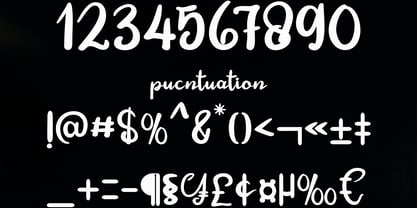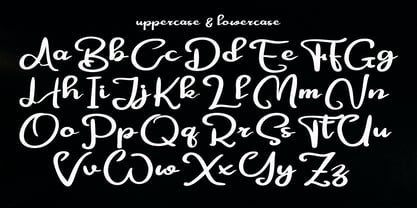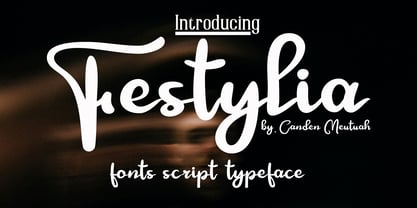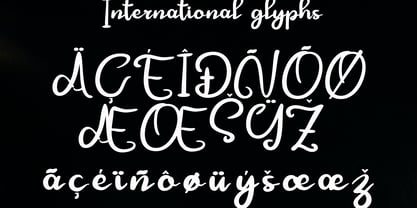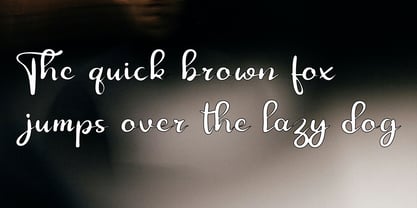
Festylia
by Canden Meutuah
The Festylia Font Family was designed by Canden Meutuah and published by Canden Meutuah. Festylia contains 1 styles. More about this family
Festylia is a stunning and visually striking font that features a soft, unique touch. Its distinctive strokes impart a special character, making it both meaningful and versatile for various applications. With an extensive range of characters, Festylia is perfect for design projects, crafts, and other creative endeavors. This adaptable font is compatible with multiple platforms, including Windows and open-source applications, making it suitable for a wide array of products. Enhance your designs with Festylia, ensuring they captivate diverse audiences across artistic and creative fields.